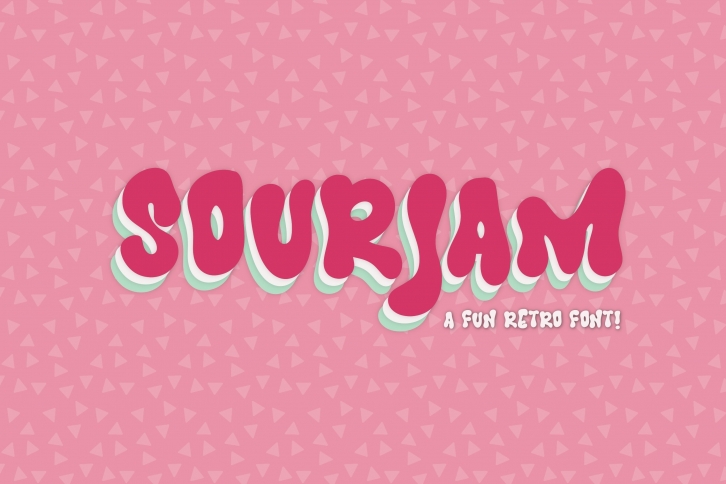
Introducing the Sourjam Font! This playful, retro-inspired font is perfect for your next project. Stack it up to create a fun, attention-grabbing look. Whether you’re designing a new website, crafting a social media post, or creating an eye-catching flyer, this font will add personality and pizzazz. So go ahead and add some sour to your sweet designs – with the Sourjam Font, you can’t help but have a good time!